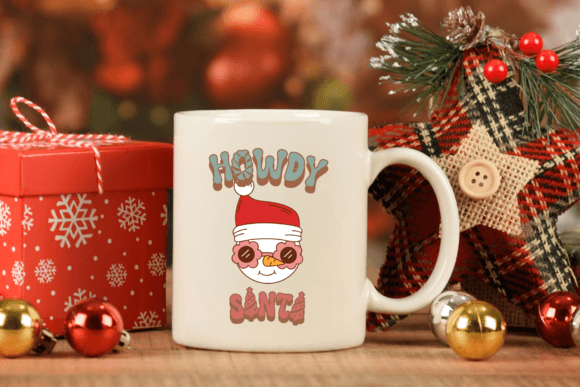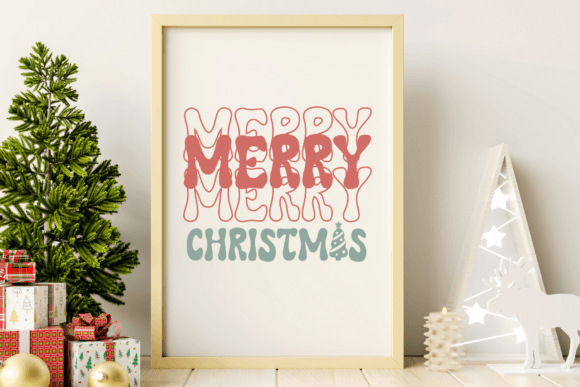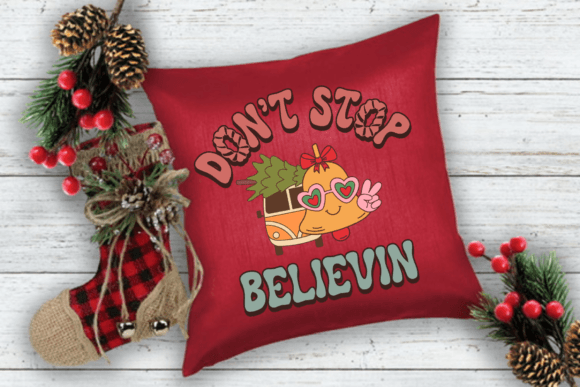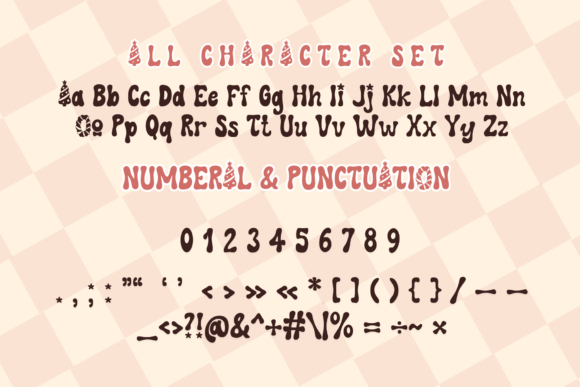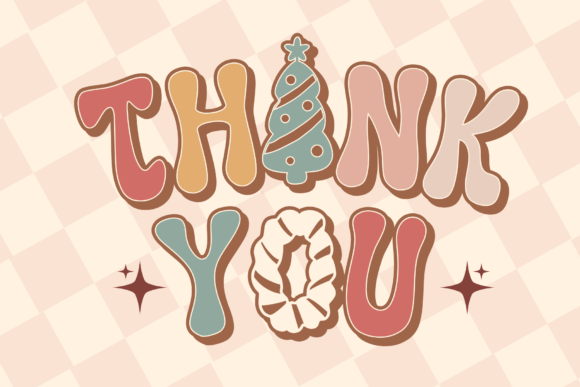
The Groovy Christmas Font: A Blast from the Past
It’s that time of the year again – the holiday season is upon us, and with it, the pressure to create something truly special for our loved ones. You’re browsing through design inspiration boards, searching for the perfect font to give your Christmas projects that extra oomph. And then, it hits you – a font that’s so retro, so groovy, and so full of holiday cheer that you can’t help but smile.
Meet the Groovy Christmas Font, a typographical treasure that embodies the spirit of the season. This font is designed to add a playful touch to your designs, making it perfect for logos, branding, ads, invitations, and more. As a designer, you’ll appreciate the versatility and authenticity it brings to your projects.
- Unique Characteristics: The font features a fun, playful, and modern design with a mix of bold and cursive elements, perfect for festive and holiday-themed projects.
Groovy Christmas Font Review
I recently had the chance to work with the Groovy Christmas Font, and I must say it’s a fun and festive addition to any holiday design project ✨. The font’s playful and retro vibe immediately transports you to a groovy holiday party. The designer’s attention to detail shines through in the unique and quirky characters that make this font truly special.
The Groovy Christmas Font comes in a range of weights and styles, making it easy to use in various design scenarios. The font’s scalability is also impressive, looking great whether you’re using it for a small social media graphic or a large billboard advertisement.
- The font’s unique and quirky characters that make it truly special ✨
- The range of weights and styles available
- The font’s scalability
- The font may not be suitable for more formal or traditional holiday designs ⚠️
- The font’s quirky characters may be overwhelming for some users
Overall, I’m really impressed with the Groovy Christmas Font. It’s a great choice for anyone looking to add a fun and festive touch to their holiday design project. While it may not be suitable for every design scenario, I think it’s a great addition to any designer’s holiday font collection.
To get the most out of the Groovy Christmas Font, try using it in conjunction with festive graphics and colors. Experiment with different font sizes and styles to create a unique look. You can also use it to create invitations, social media posts, and other holiday-themed content.
The Groovy Christmas Font is perfect for:
- Holiday invitations and cards
- Social media posts and updates
- Blog posts and articles about Christmas and winter
- Decorative graphics and illustrations